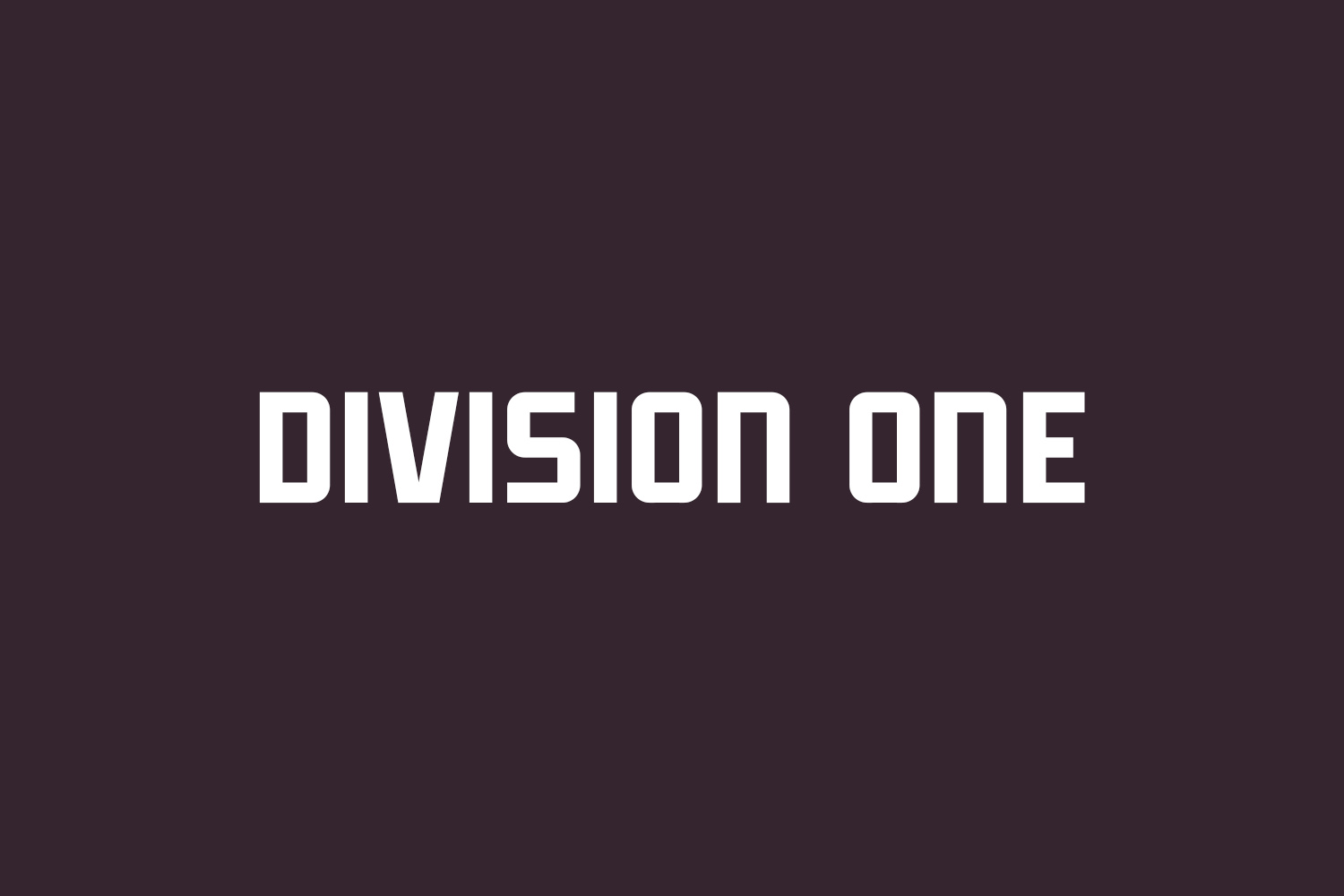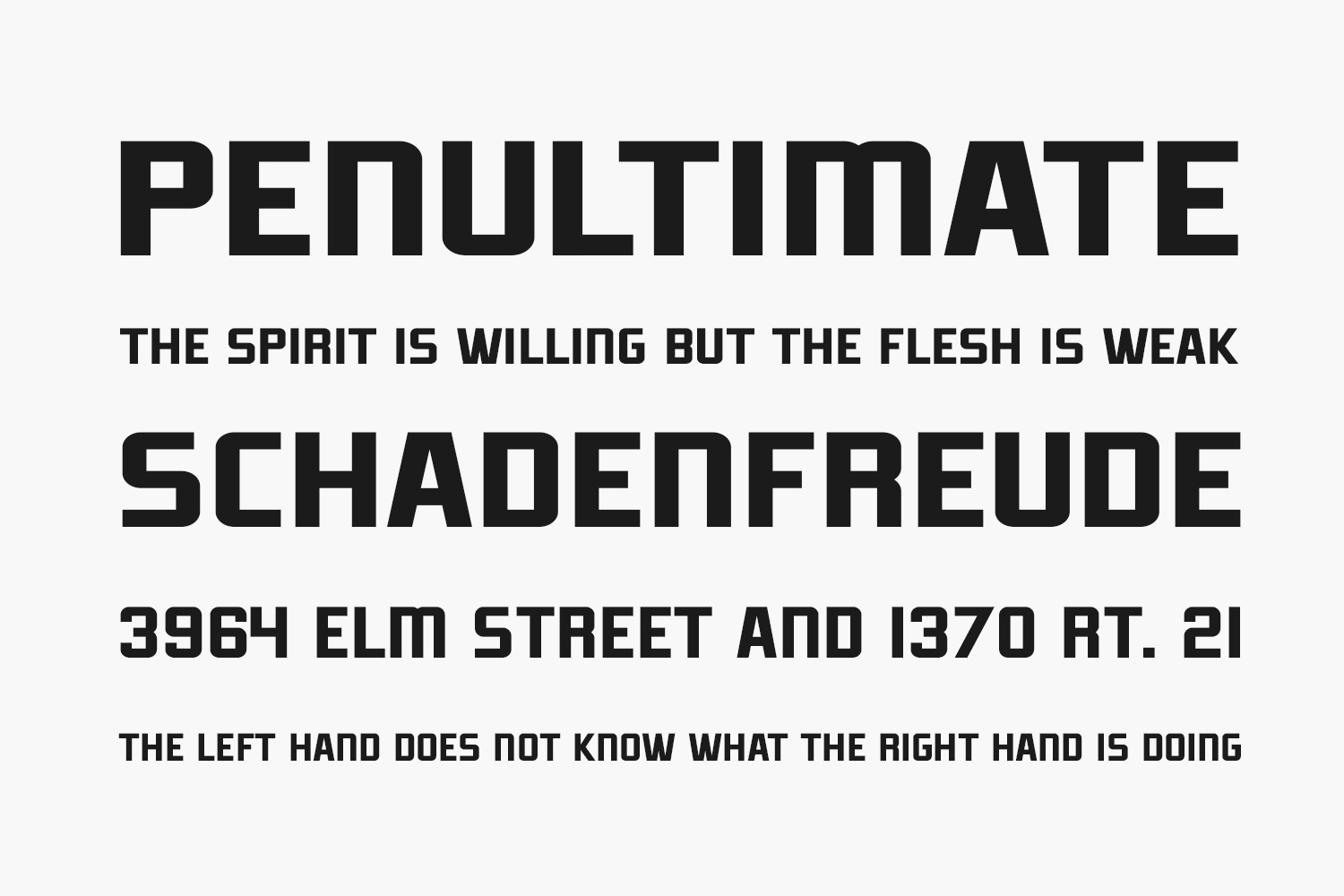
Division One Free Font is a bold and commanding display font that commands attention with its thick, chunky letters. Its striking style makes it perfect for headlines, posters, and signs that need to make a big impact. The font’s thick letters and strong lines give it a sense of power and confidence, making it perfect for designs that want to convey a sense of authority and dominance. Its bold style also makes it ideal for designs that want to stand out and make a statement. Division One Free Font is a font that will give your designs a powerful and unforgettable presence.
Designed by Don Marciano